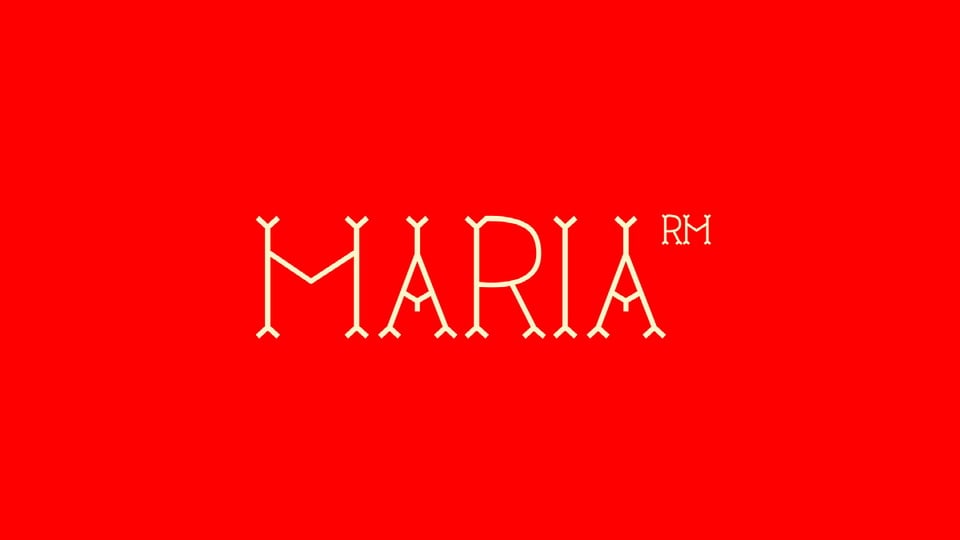
Download Maria RM font, a typeface born from the shapes engraved in the five letters of the iconic Maria biscuit, later expanded into a full alphabet with an experimental and exploratory approach while maintaining its traditional traits.
Designer: Rui Marques